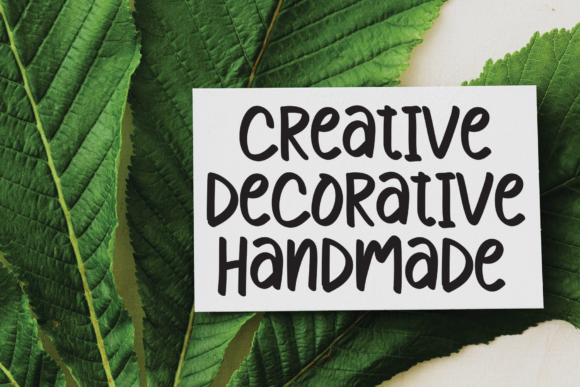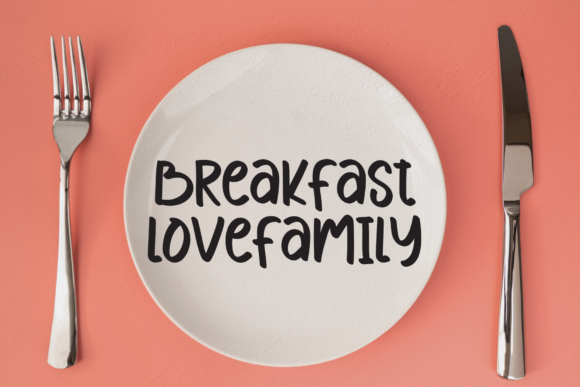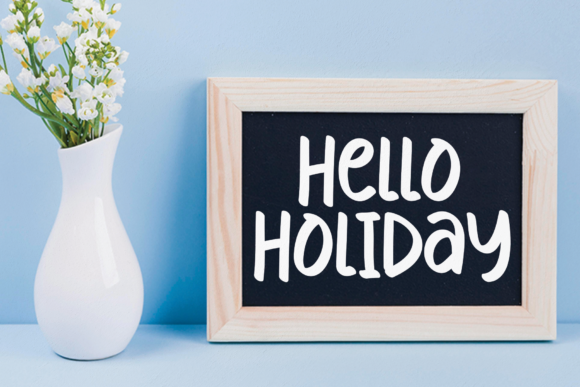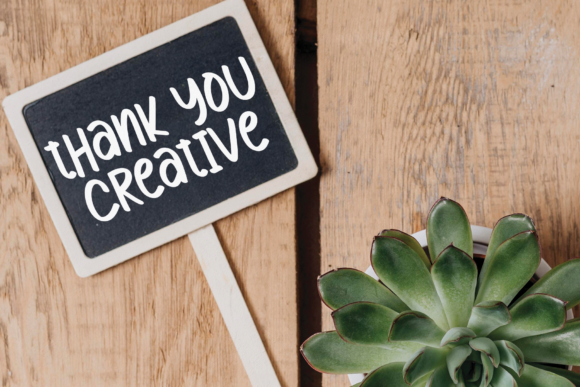
About Nightstar Font
Nightstar is a sweet and friendly handwritten font. Its natural and unique style makes it incredibly fitting to a large pool of designs. The only limit is your imagination!